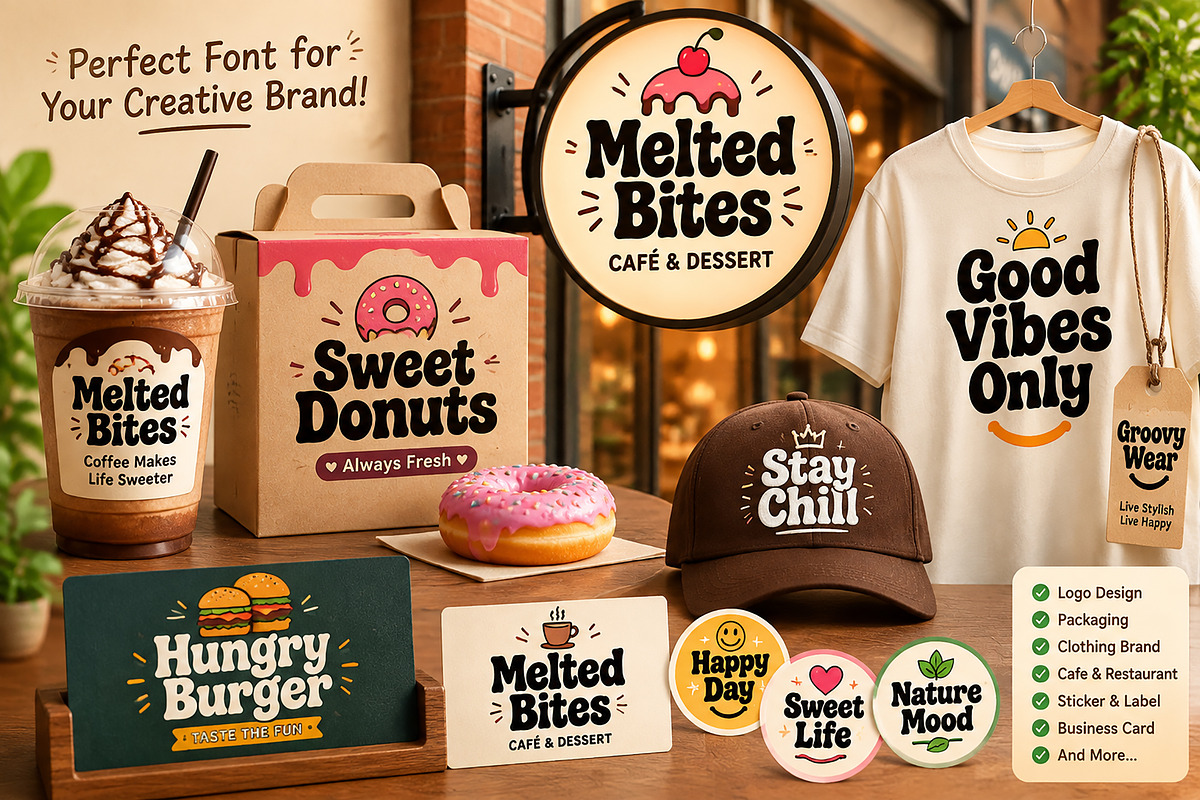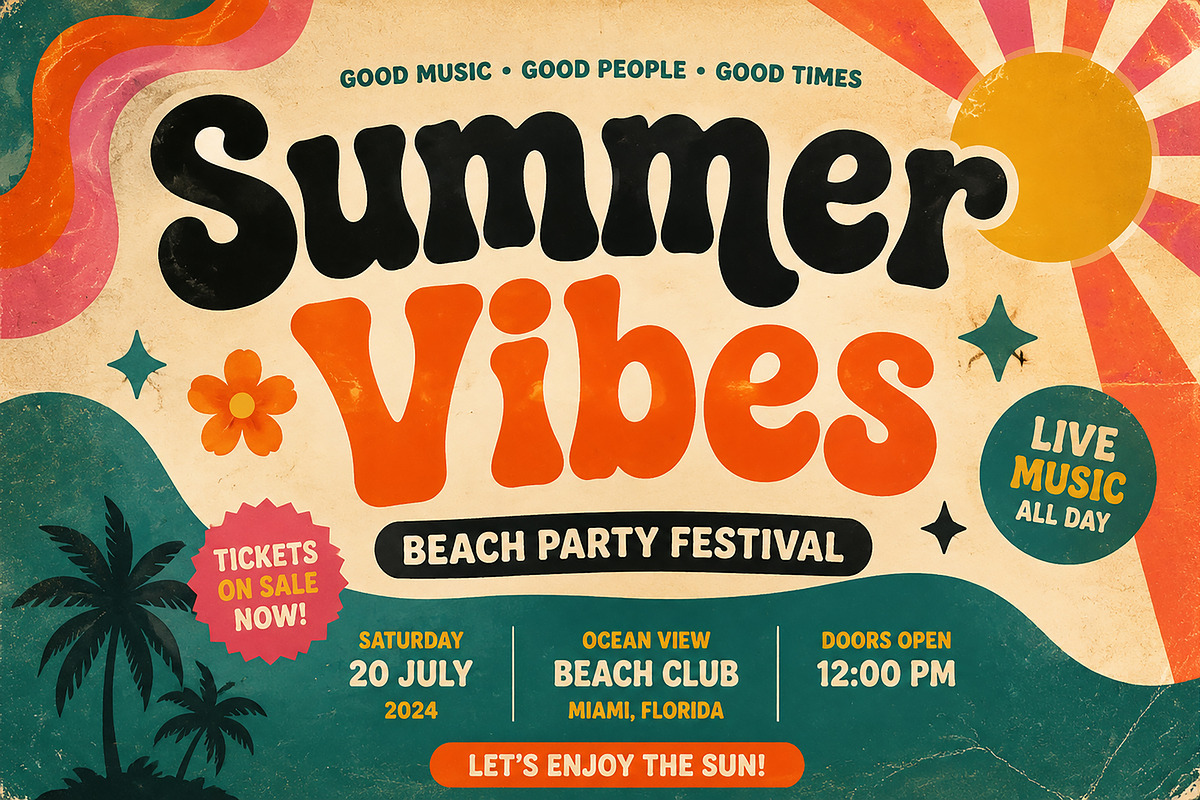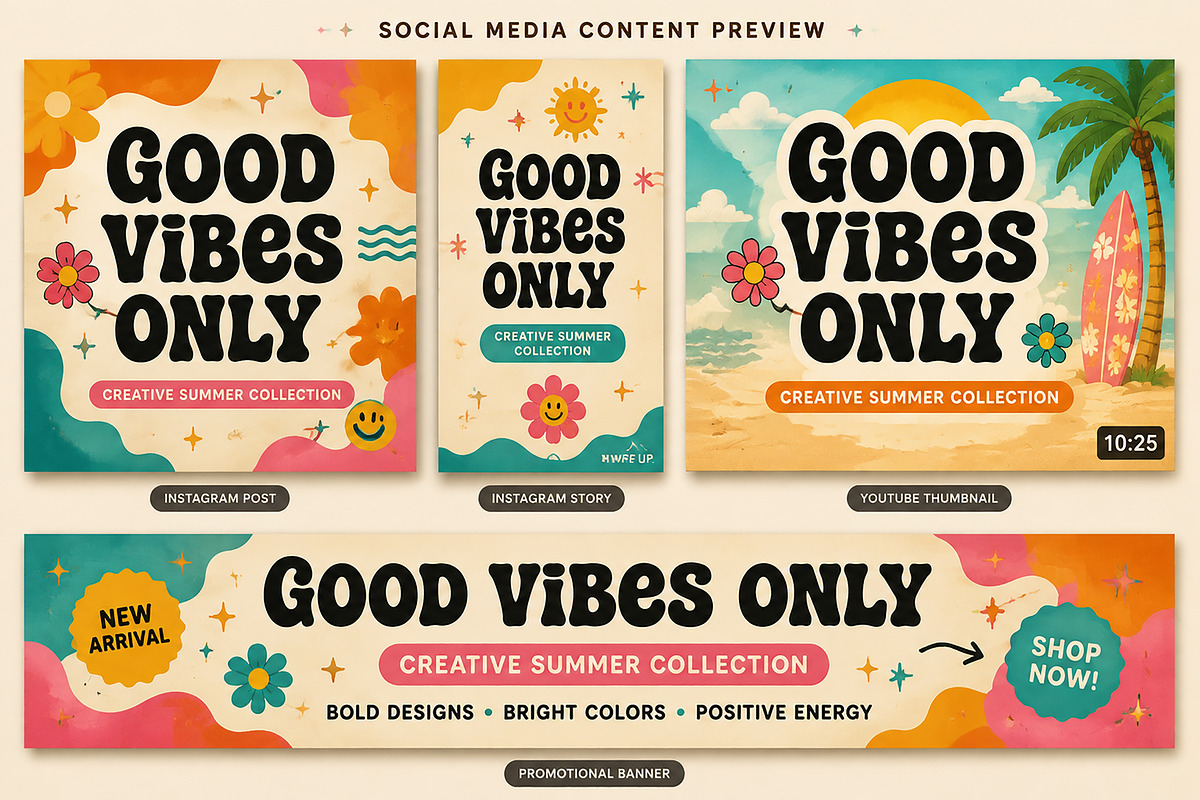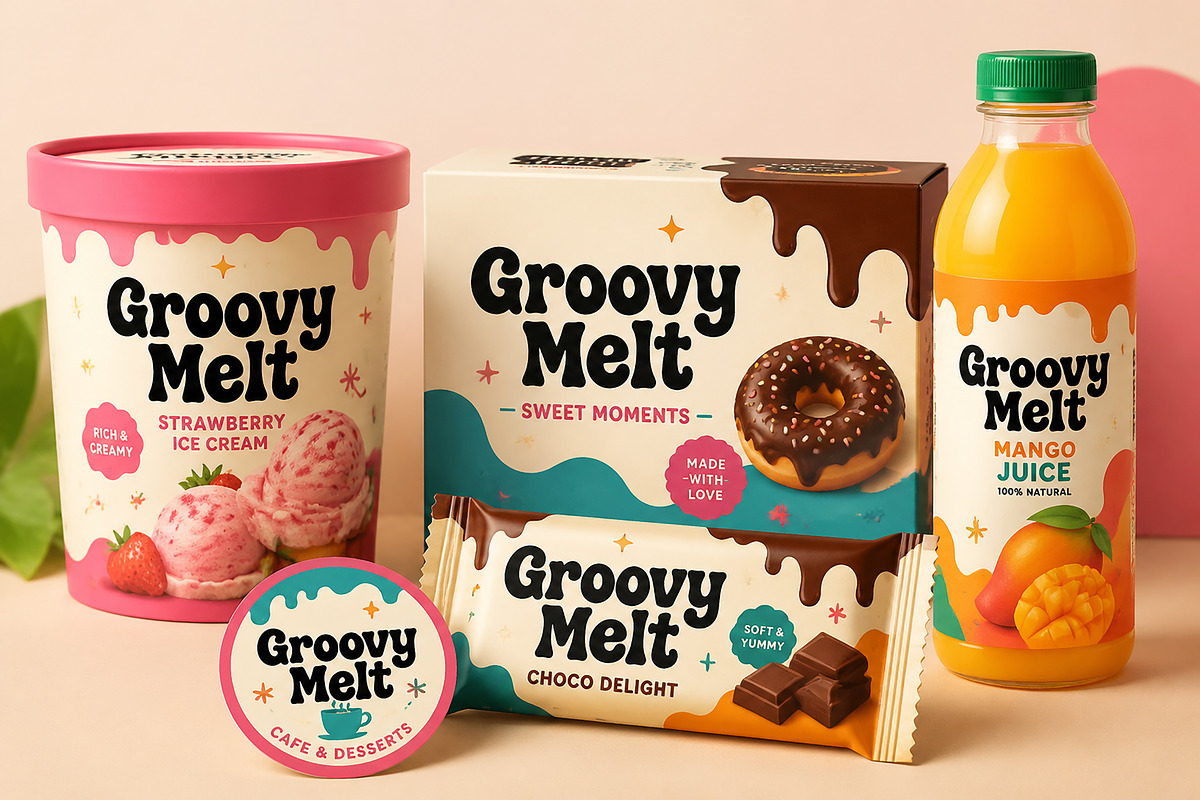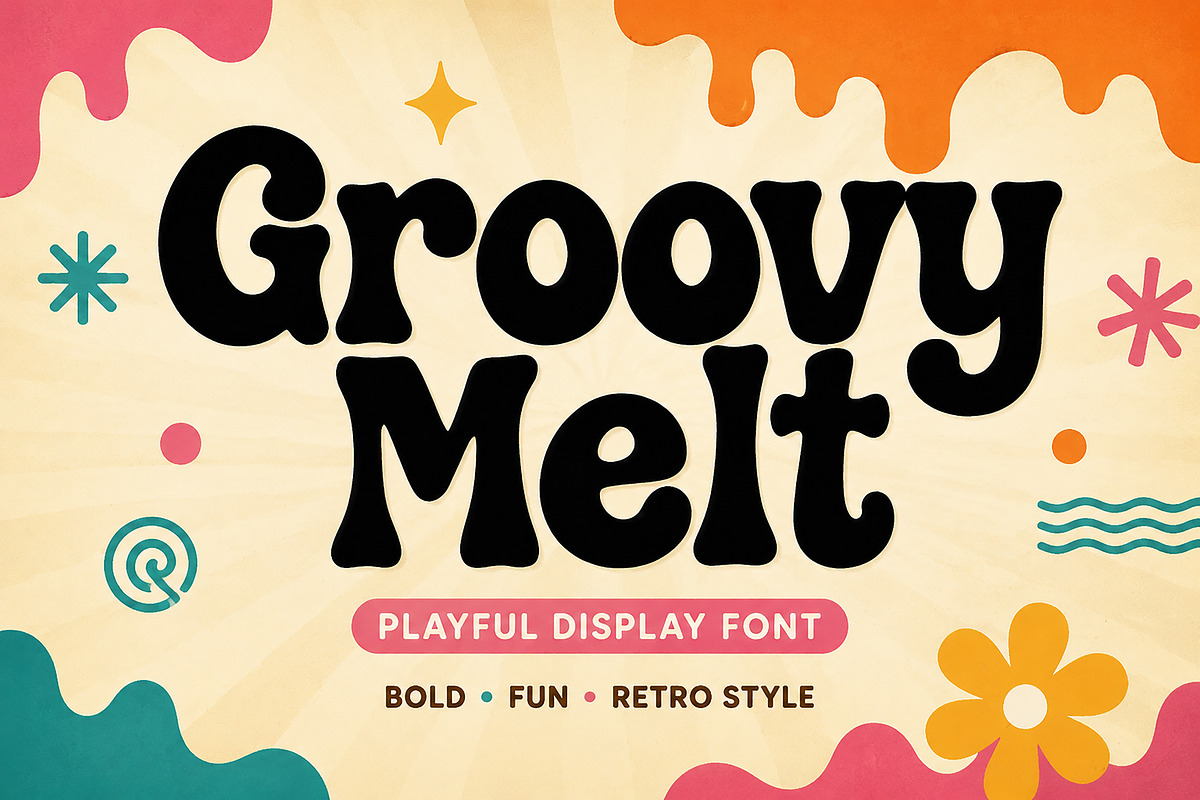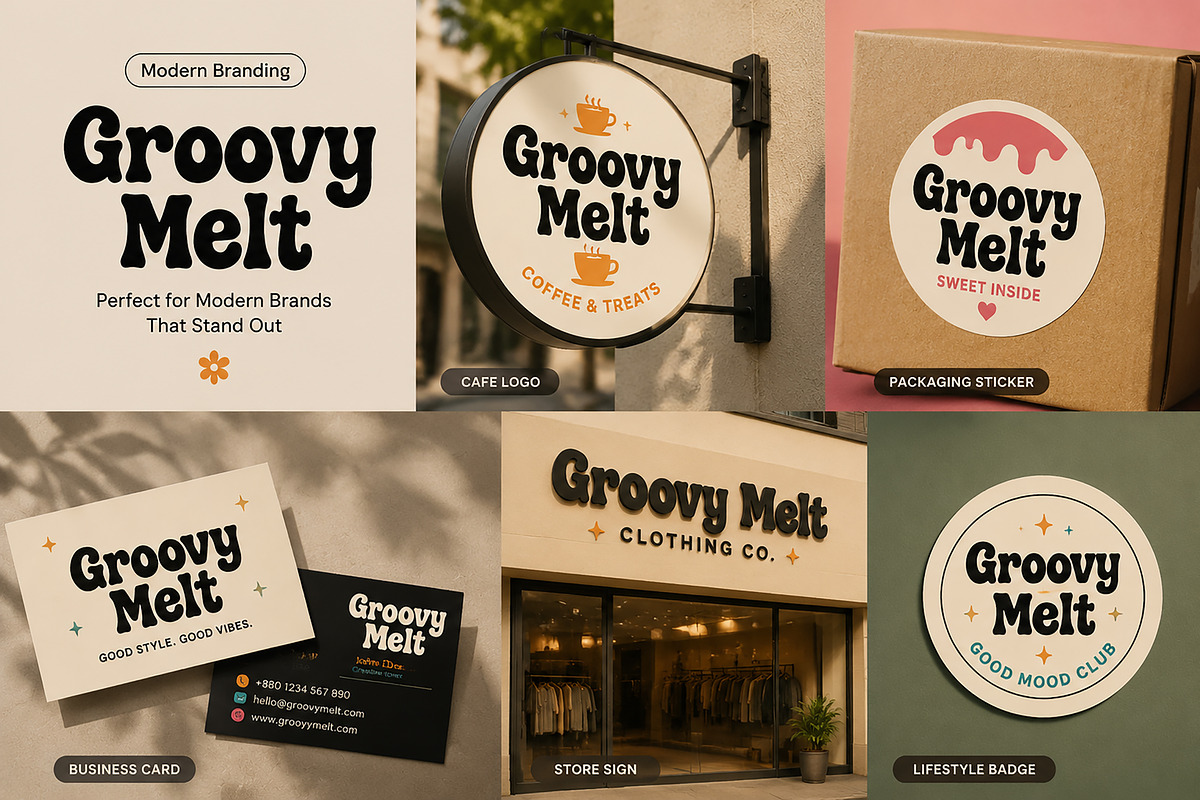
Groovy Melt
Groovy Melt - Playful Retro Display Font | Bold Bubble Typeface
Introducing Groovy Melt, a fun and expressive display font inspired by retro vibes, playful shapes, and bold creative typography. Designed with a unique bubbly style, this font brings a cheerful and eye-catching personality to any project.
Groovy Melt is perfect for brands, packaging, posters, social media graphics, logos, kids projects, food branding, merchandise, and creative advertisements. Its bold shapes and friendly character make it an excellent choice for designs that need a memorable and energetic visual identity.
Whether you are creating a cafe logo, dessert packaging, vintage poster, Instagram content, product labels, or modern brand identity, Groovy Melt helps your designs stand out with a fun retro touch.
• Logo Design
• Branding & Identity
• Food & Beverage Packaging
• Cafe & Restaurant Projects
• Poster Design
• Social Media Graphics
• YouTube Thumbnails
• Product Labels
• Merchandise Design
• Stickers & Badges
• Kids & Fun Projects
• Advertising Materials
• Playful retro display style
• Bold and rounded letterforms
• Eye-catching bubble typography
• Perfect for headlines and large text
• Creative and expressive design style
• Easy to use in professional and personal projects
Bring a fresh, fun, and nostalgic feeling to your designs with Groovy Melt — a bold display font created for designers, brands, and creative projects.